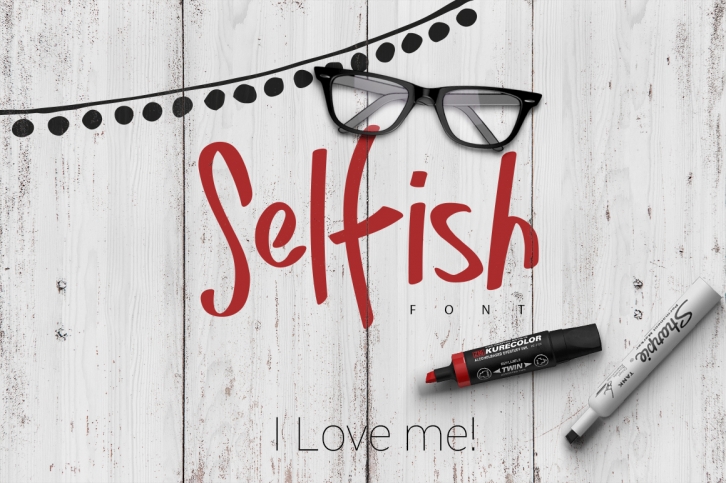
Selfish is a gorgeous font that was realeased on December 29, 2016. The font can be used in many style contexts and design environments. Perfect for invitations, magazines, websites, logos, and more! It was designed by SmartDesigns and the file size is 11.91 MB. Thanks for checking out this font!